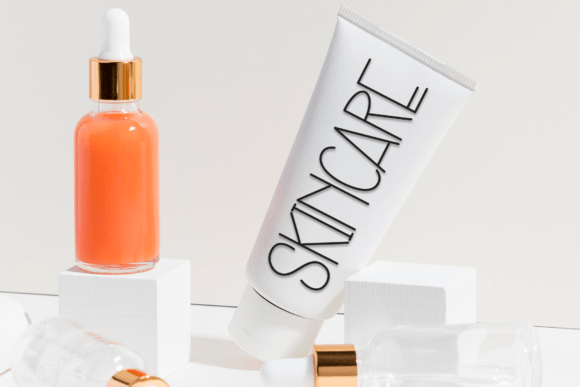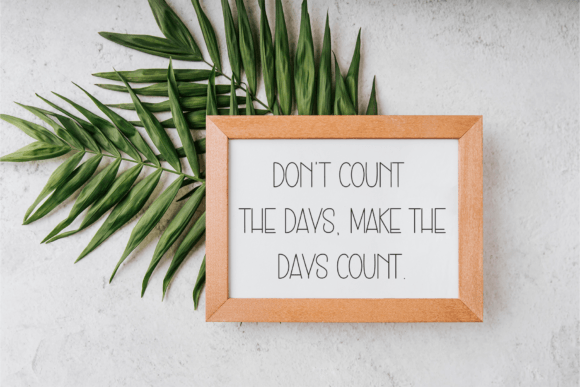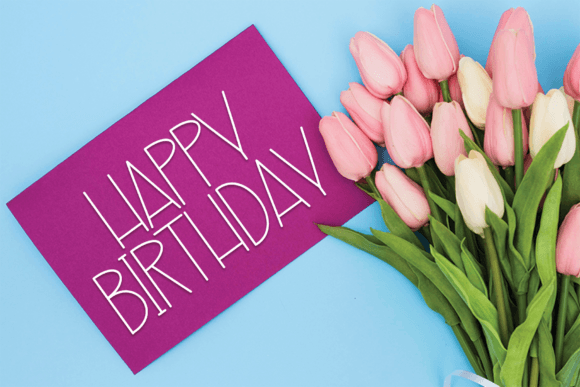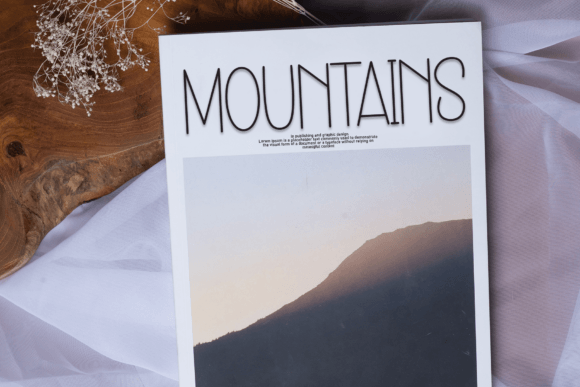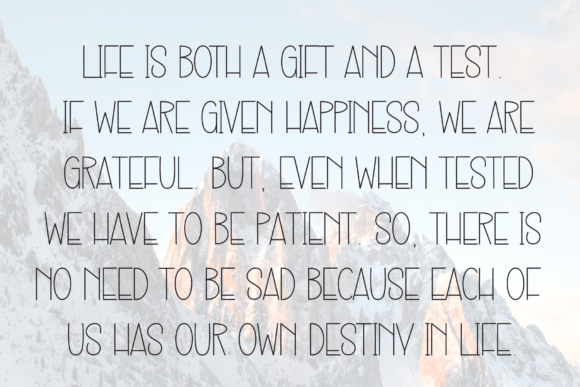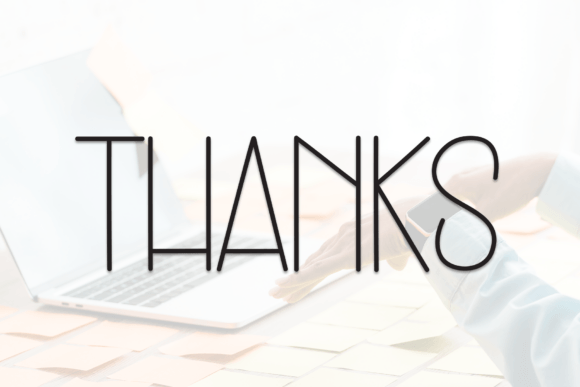
The Digital Notes Font: A Sweet and Friendly Companion for Your Designs
Have you ever been in the middle of a design project, and suddenly, you’re stuck on finding the perfect font? I certainly have! It was a typical Wednesday afternoon when I was working on a craft project for a client, and I just couldn’t seem to find a font that captured the warmth and playfulness I was looking for. That’s when I stumbled upon the Digital Notes font, and let me tell you, it was love at first sight! 💕
A Personal Review: What I Love About Digital Notes
So, what makes Digital Notes so special? Here are a few things that I absolutely adore about this font:
• Unique and natural style: Digital Notes has a one-of-a-kind, handwritten look that makes it perfect for a wide range of designs, from crafts to branding.
• Versatility: This font can be used for everything from invitations and greeting cards to social media graphics and blog posts.
• 💖 Warm and friendly vibe: Digital Notes exudes a sense of approachability and warmth, making it ideal for designs that require a personal touch.
While Digital Notes is an amazing font, it’s not without its quirks. Here are a few things to keep in mind:
• 🤔 Kerning can be a bit tricky: As with any handwritten font, kerning can be a bit finicky. Be sure to adjust the spacing between letters to get the best results.
• ⚠️ Limited use for body text: While Digital Notes is perfect for headlines and titles, it may not be the best choice for large blocks of body text.
The Story Behind Digital Notes
While I couldn’t find any information on the exact origins of Digital Notes, I like to imagine that it was created by a designer who wanted to capture the essence of handwritten notes in a digital format. Perhaps they were inspired by the art of letter-writing, or the joy of receiving a handwritten note in the mail. Whatever the inspiration, Digital Notes is a true gem that brings a touch of warmth and personality to any design.
Q: What type of designs is Digital Notes best suited for? A: Digital Notes is perfect for designs that require a warm, friendly, and playful touch, such as invitations, greeting cards, and social media graphics.
Q: Is Digital Notes a difficult font to work with? A: Not at all! Digital Notes is a relatively easy font to work with, especially if you’re familiar with OpenType features and glyphs.